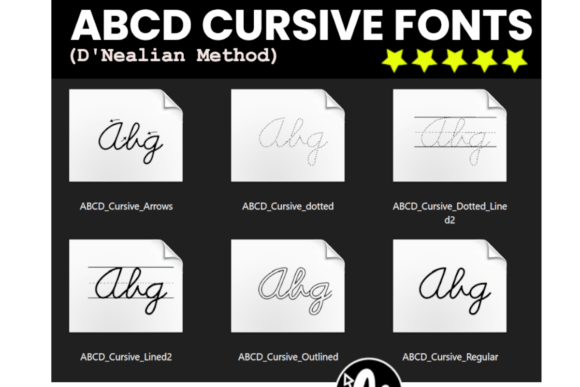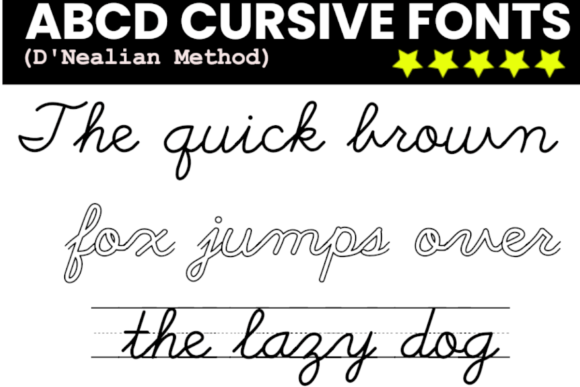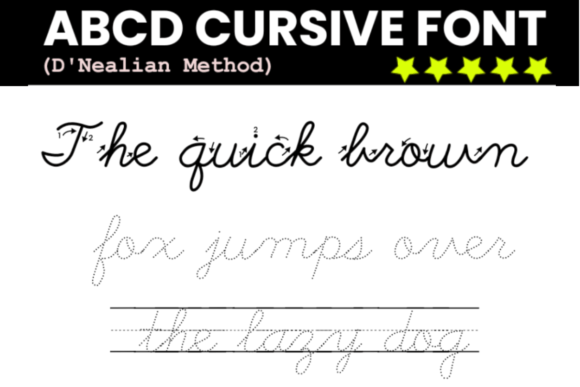
Unlock the Power of Abcd Cursive Handwriting Tracing Bundle Font for Engaging Learning Experiences
Are you a designer, crafter, or educator looking for innovative ways to create engaging and interactive learning materials for teaching cursive handwriting? Look no further than the Abcd Cursive Handwriting Tracing Bundle Font. This comprehensive font bundle is based on The D’Nealian Method, a renowned approach to teaching handwriting that emphasizes legibility, ease of writing, and reading.
What is the Abcd Cursive Handwriting Tracing Bundle Font?
The Abcd Cursive Handwriting Tracing Bundle Font is a unique collection of handwritten fonts designed to help you create thousands of worksheets, activity sheets, and other educational resources using any software. This versatile font bundle is perfect for creating customized learning materials for students, children, or anyone interested in learning cursive handwriting in an enjoyable and interactive way.
Key Features of the Abcd Cursive Handwriting Tracing Bundle Font
- Based on The D’Nealian Method: This font bundle is rooted in a proven and effective approach to teaching handwriting, ensuring that learners develop legible and flowing cursive writing skills.
- Handwritten Fonts: The bundle includes a range of handwritten fonts that mimic the natural flow and style of cursive writing, making it easier for learners to practice and improve their handwriting.
- Compatible with Any Software: The fonts are designed to work seamlessly with any software, allowing you to create customized worksheets, activity sheets, and other educational resources with ease.
- Endless Creative Possibilities: With the Abcd Cursive Handwriting Tracing Bundle Font, you can create a vast array of learning materials, from tracing worksheets and handwriting practice sheets to activity sheets and educational games.
As a designer or crafter, you understand the importance of creating engaging and interactive learning materials that capture the attention of learners. The Abcd Cursive Handwriting Tracing Bundle Font offers numerous benefits, including:
- Time-Saving: With this font bundle, you can create customized learning materials quickly and efficiently, saving you time and effort.
- Customization: The fonts are fully customizable, allowing you to tailor your learning materials to meet the specific needs of your students or clients.
- Professional-Quality Results: The Abcd Cursive Handwriting Tracing Bundle Font produces high-quality results that are comparable to professionally designed materials.
The Abcd Cursive Handwriting Tracing Bundle Font is an invaluable resource for designers, crafters, and educators seeking to create engaging and interactive learning materials for teaching cursive handwriting. With its roots in The D’Nealian Method and its versatility in design, this font bundle offers endless creative possibilities for creating customized worksheets, activity sheets, and educational resources. Unlock the power of the Abcd Cursive Handwriting Tracing Bundle Font today and revolutionize the way you teach or learn cursive handwriting.